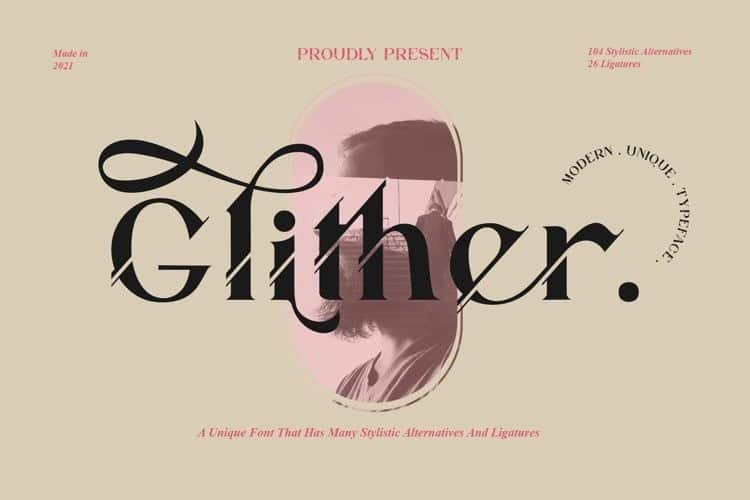
Glither Font
Glither Serif Font is a condensed serif display typeface created by Alit Suarnegara with ligatures also complete multilingual glyphs. This font has an elegant and bold concept. It is perfect for designs with techno themes such as modern concept, quotes and others.